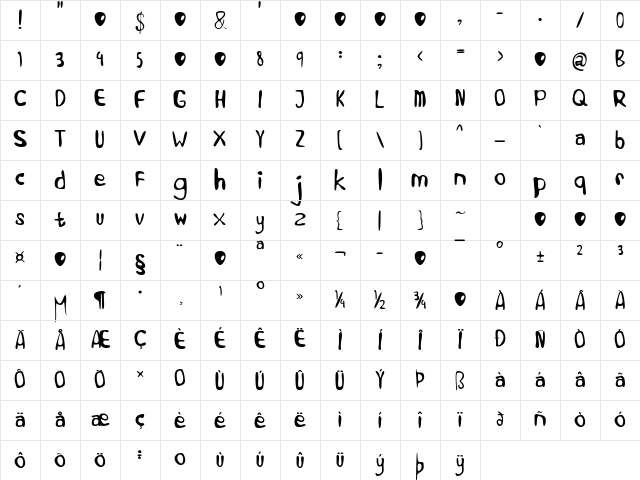
Alien Learns To Write Regular
Design Context for Alien Learns To Write
Alien Learns To Write is a composed and adaptable typeface that performs quietly and consistently across a wide range of design contexts.
Pro Tip: Use Alien Learns To Write in both headline and body roles to test its range before committing to a single application.